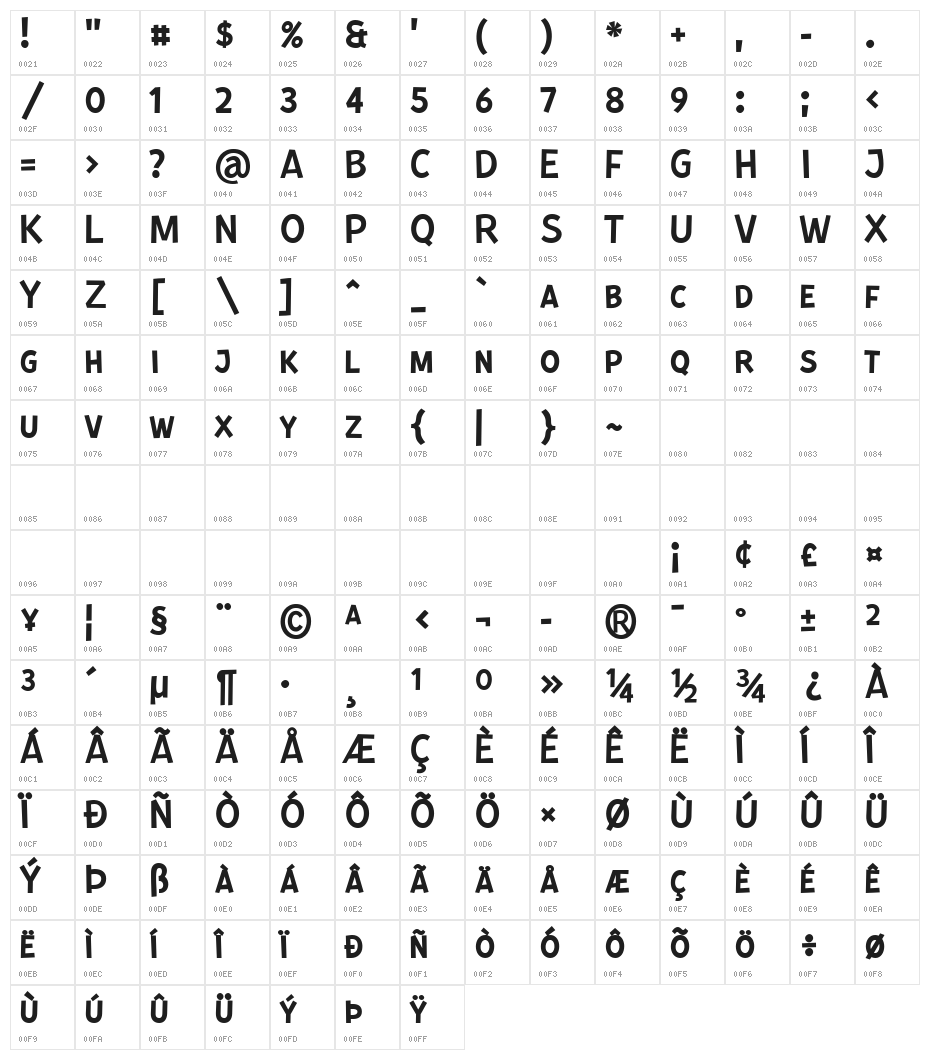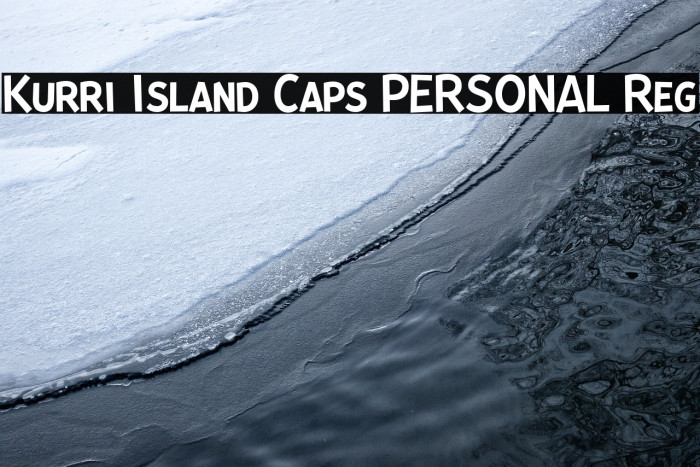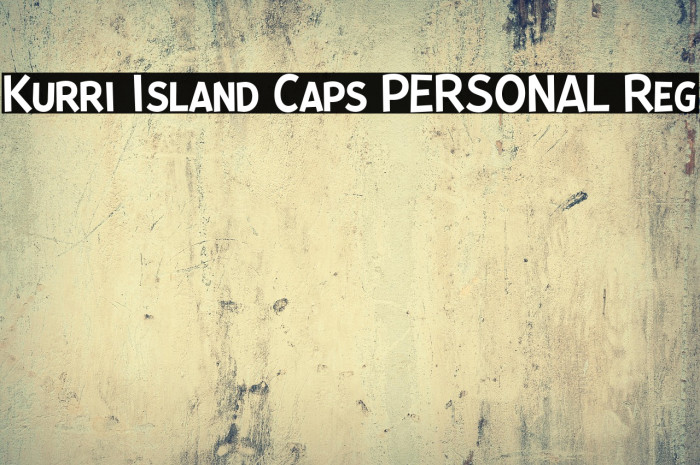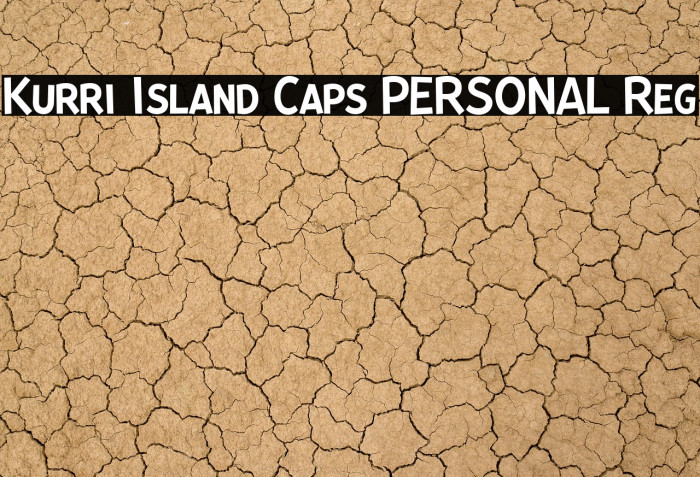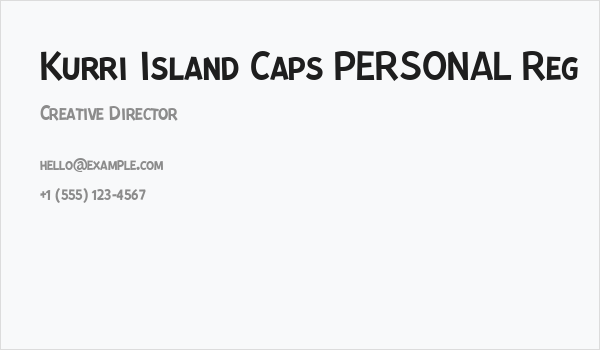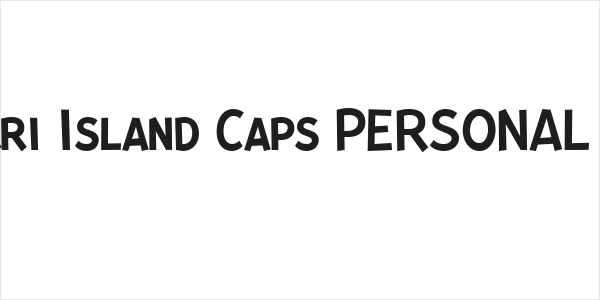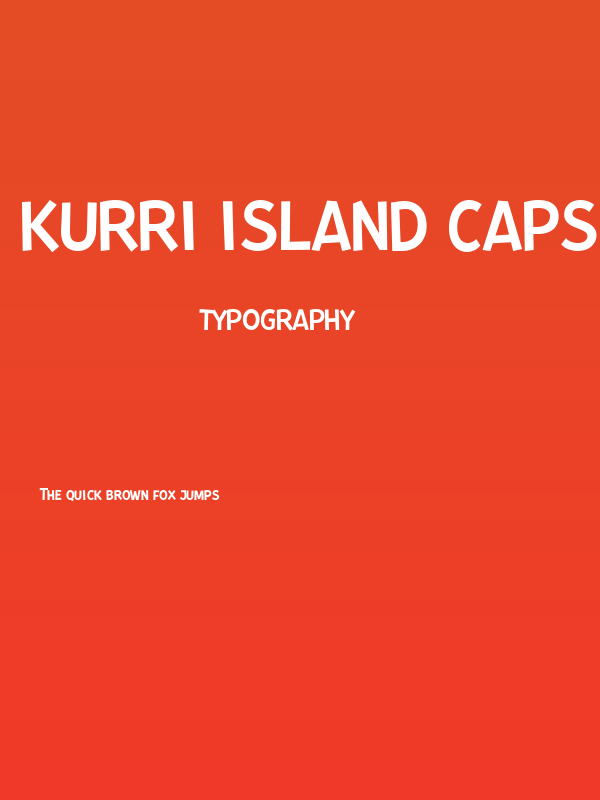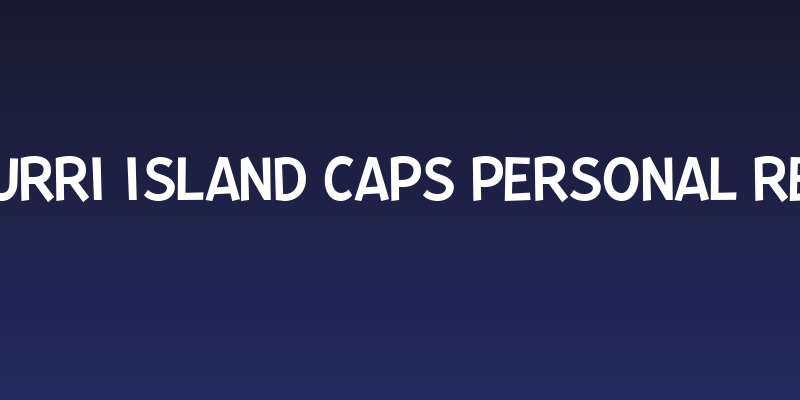
Kurri Island Caps PERSONAL Reg Font
Kurri Island Caps PERSONAL Reg Description
This font features bold, playful characters with a slightly irregular and hand-drawn appearance. The uppercase letters are prominent and slightly tilted, giving a dynamic and energetic feel. The numbers and special characters maintain the same boldness and playful style, making them stand out. The overall design is casual and approachable, suitable for creative and informal projects. The strokes are consistent in thickness, providing a uniform look across all characters.
| Overall Style | Playful, Casual |
| Use Case | Headlines, Posters, Branding |
| Proposed Projects | Ideal for children's books, playful branding, posters, and creative projects that require a fun and informal touch. |